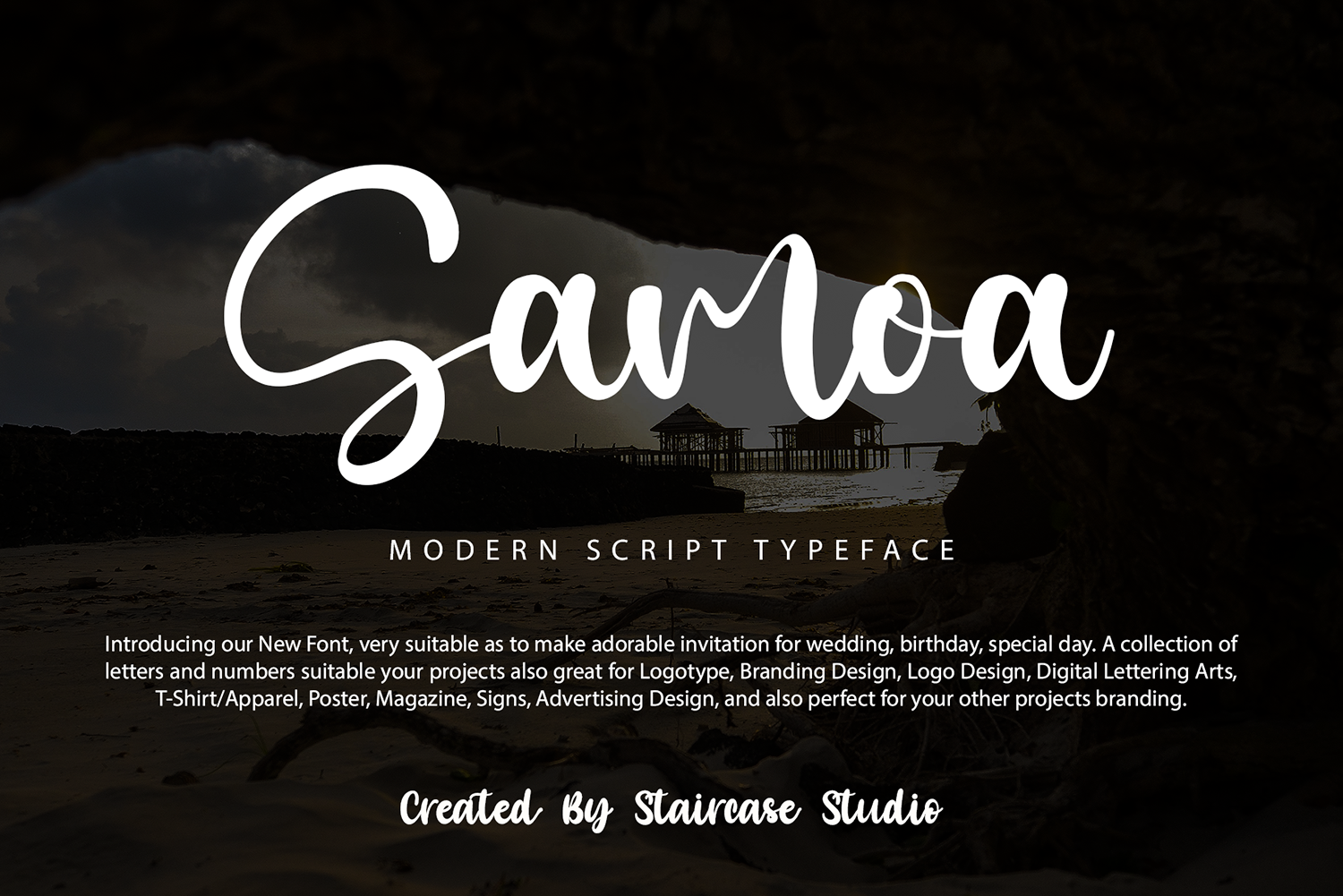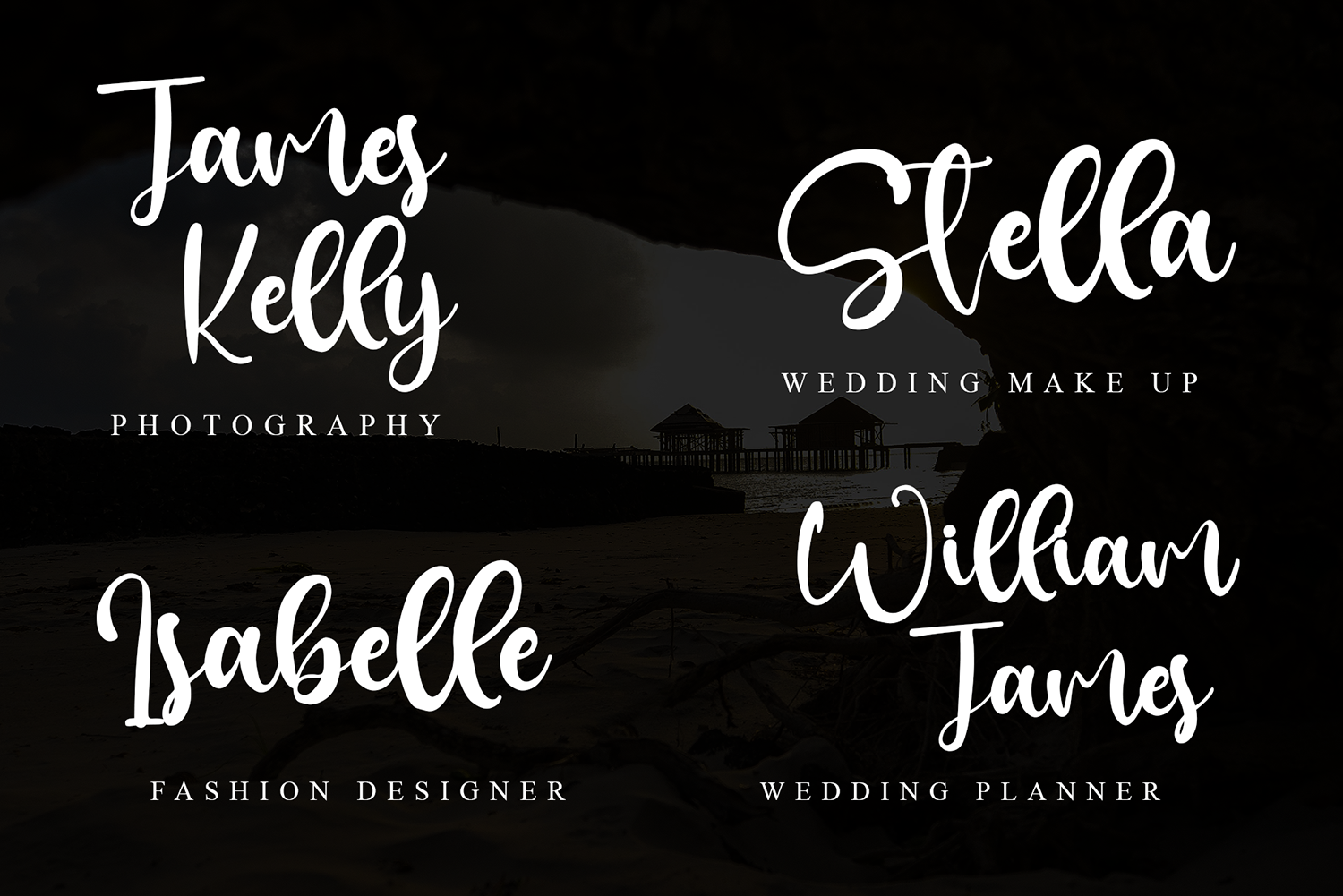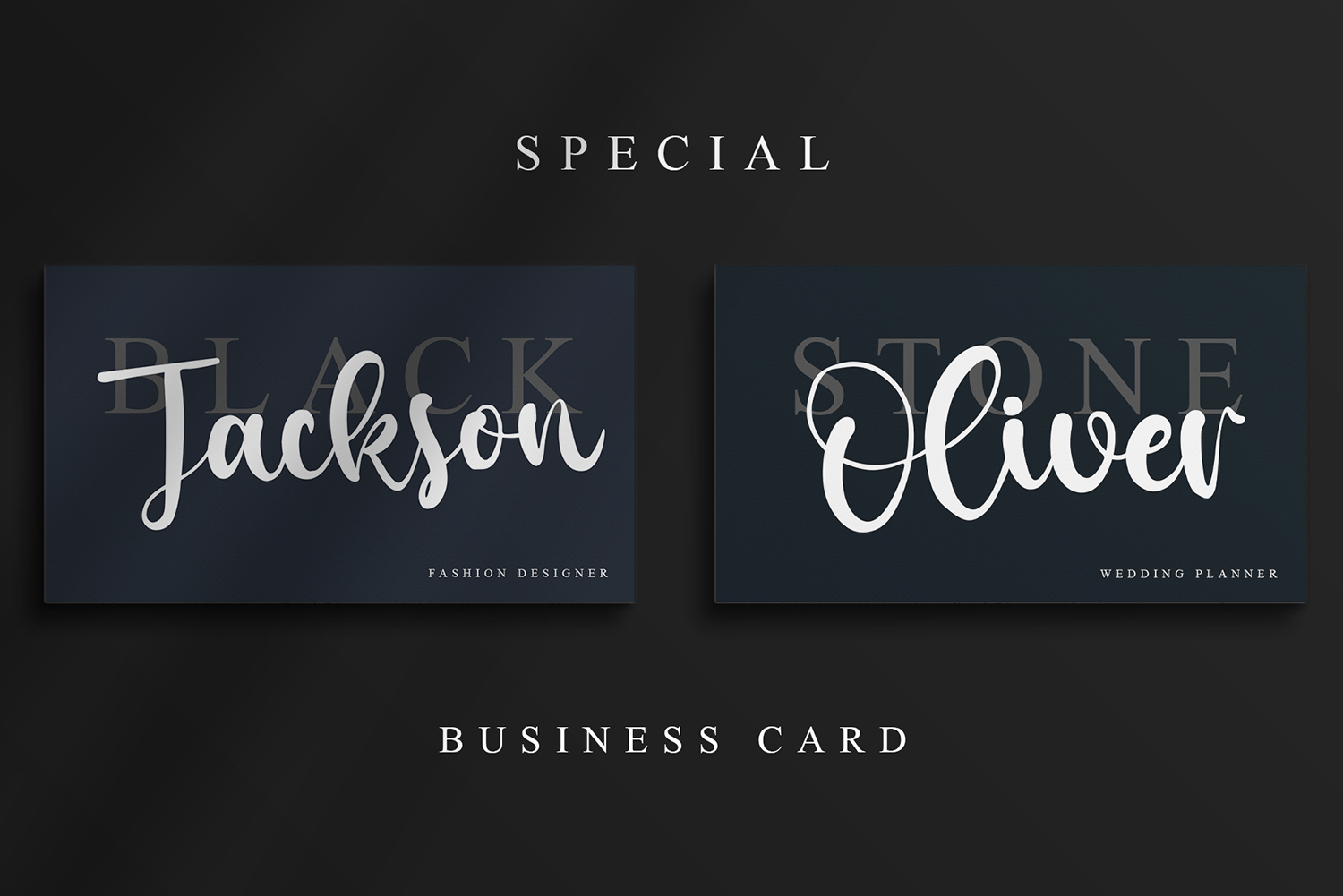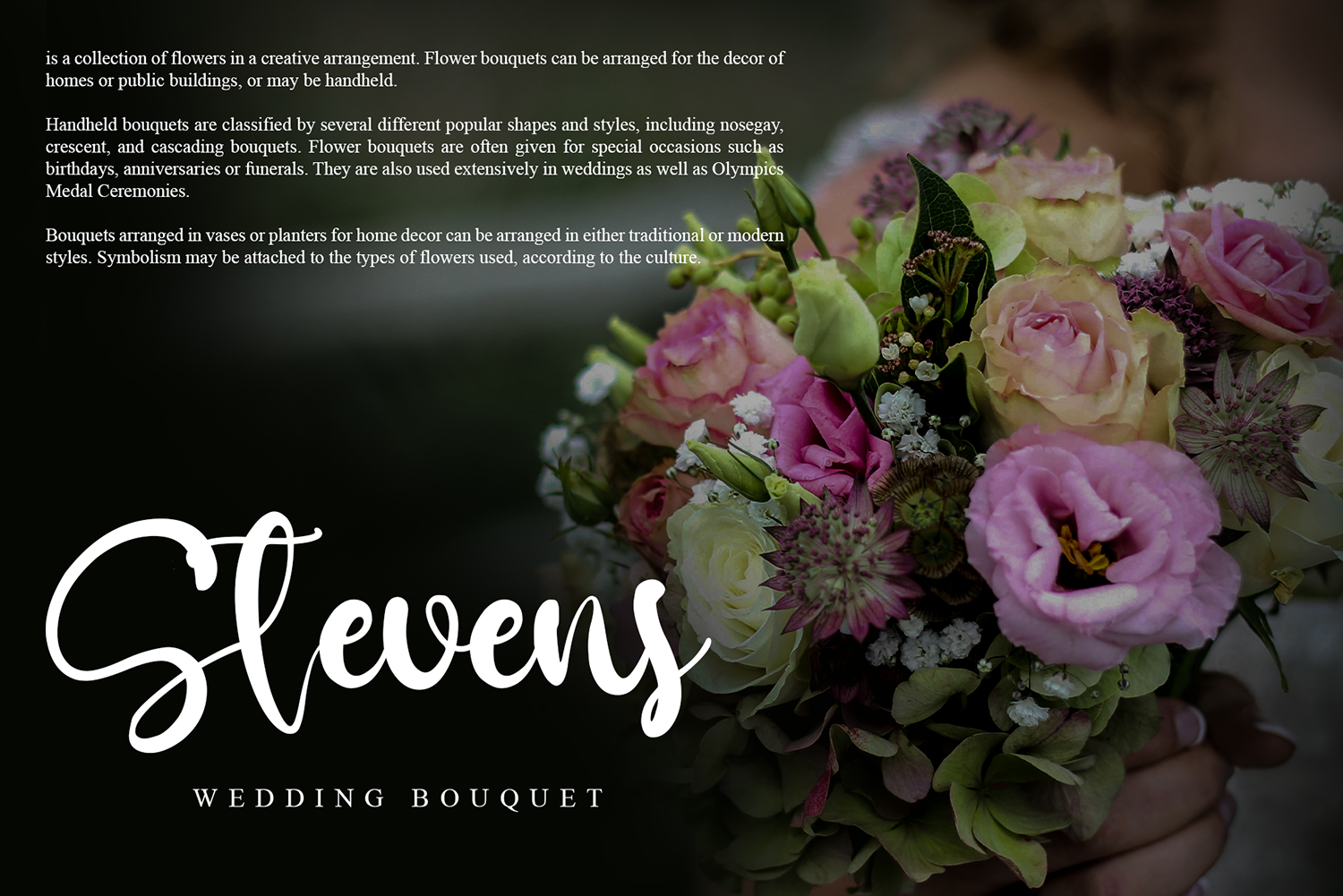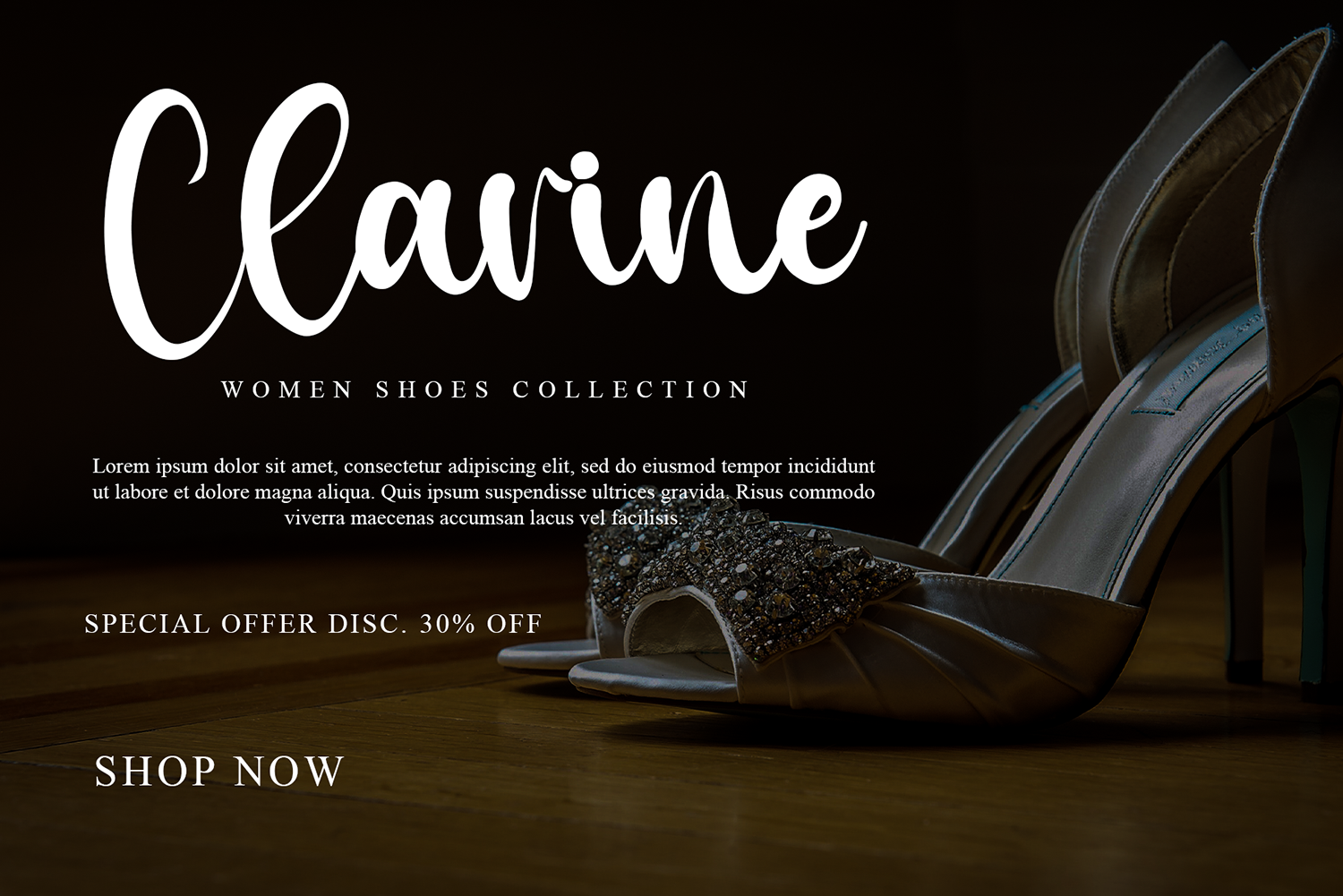
Samoa Free Font
Samoa Free Font embodies a contemporary script font aesthetic, complete with an assortment of letters and numbers primed for your creative ventures. Ideal for logotypes, branding collateral, digital lettering artwork, apparel embellishments, posters, magazine layouts, signage, advertising endeavors, and beyond, this font embraces versatility and style. This free typeface was designed by a talentedΒ Staircase Studio. If you like it don’t forget to check out the full version.